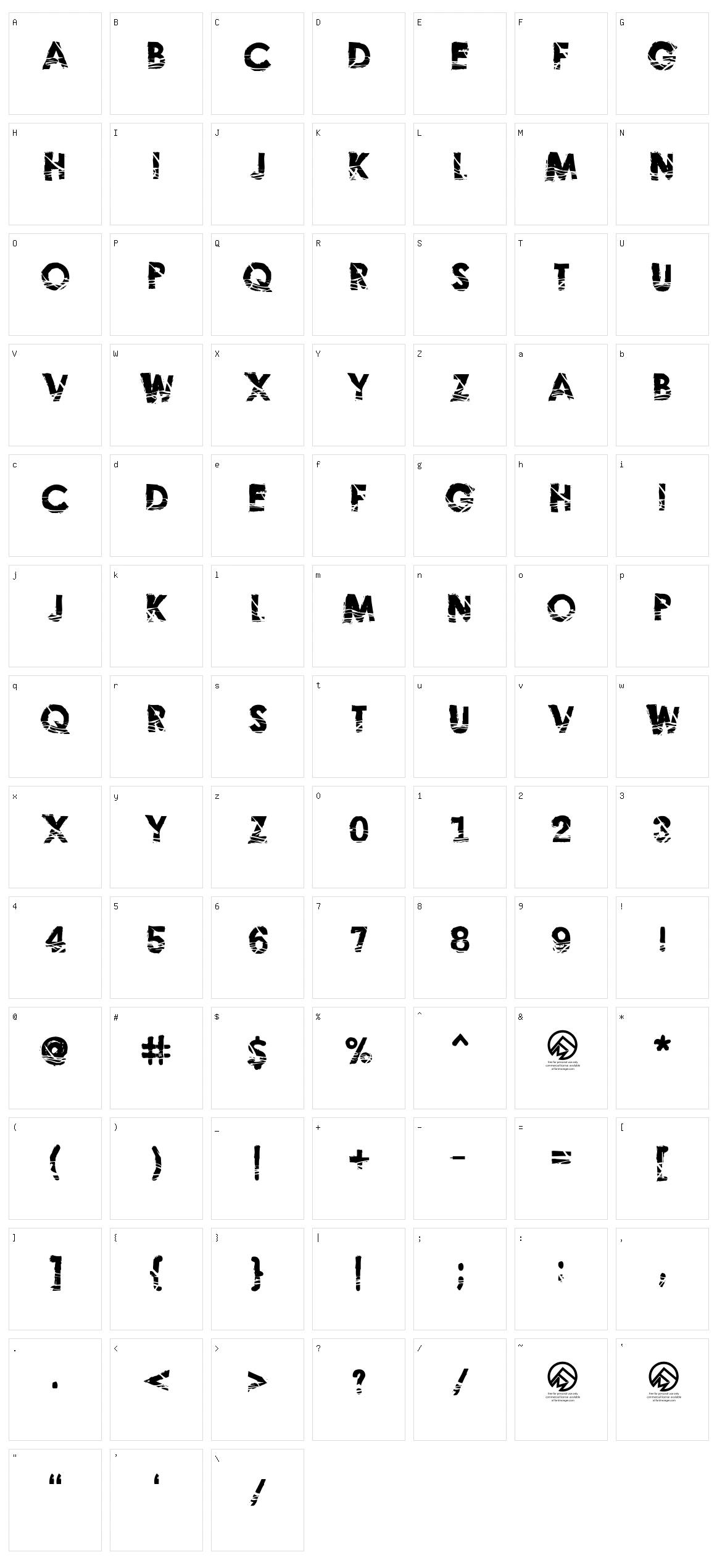
The free font No Hard Evidence is carefully designed by Font Monger, showcasing a thoughtful balance of creativity and usability and falls under the Destroy font style. When you download the ZIP file, it contains only 137.46 KB of font files, making it lightweight and quick to download. Please review the license details below to understand permitted usage and distribution rights. If license information is not available, we recommend using this font for personal projects only or contacting the author directly for commercial usage permissions.